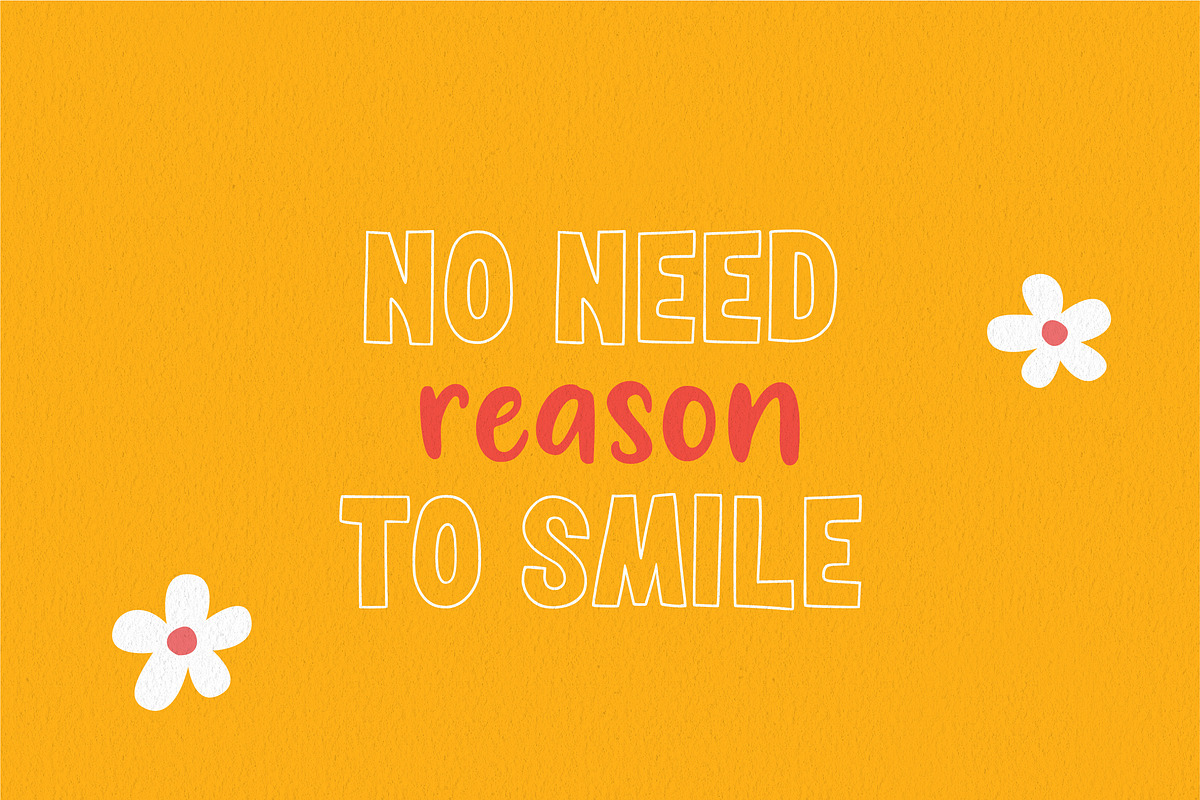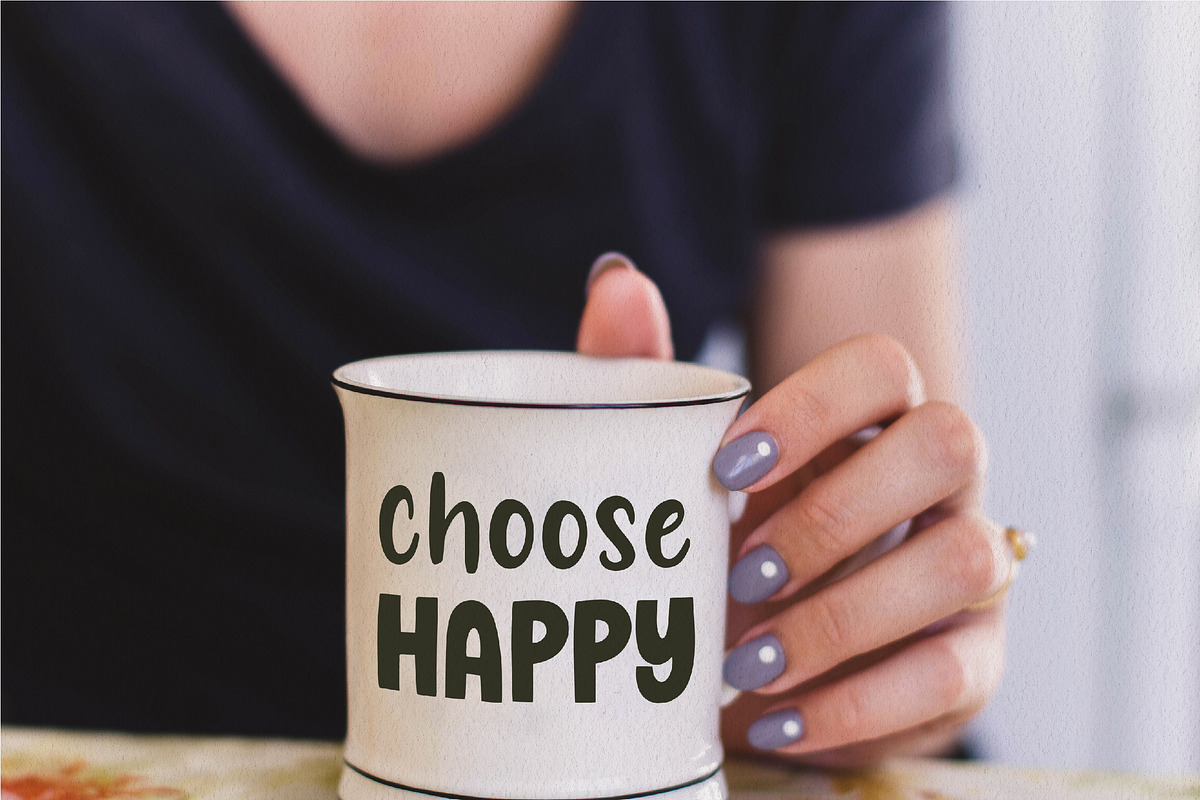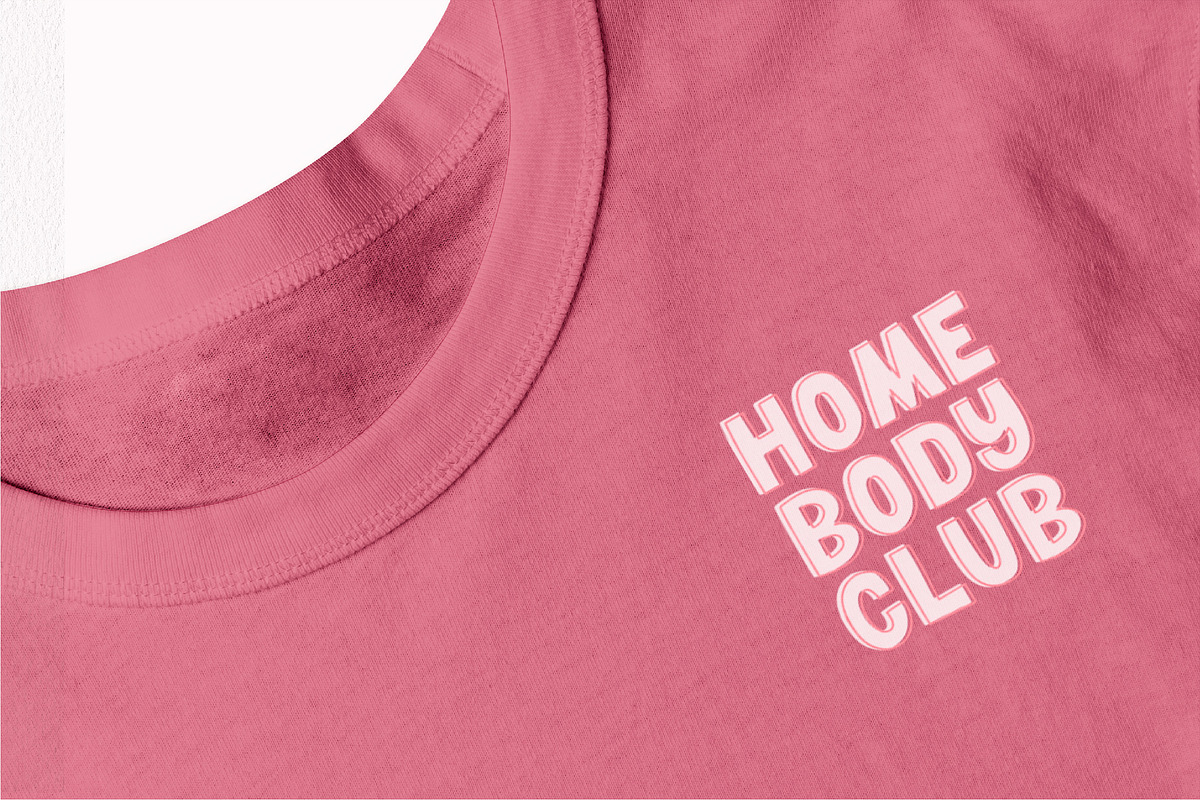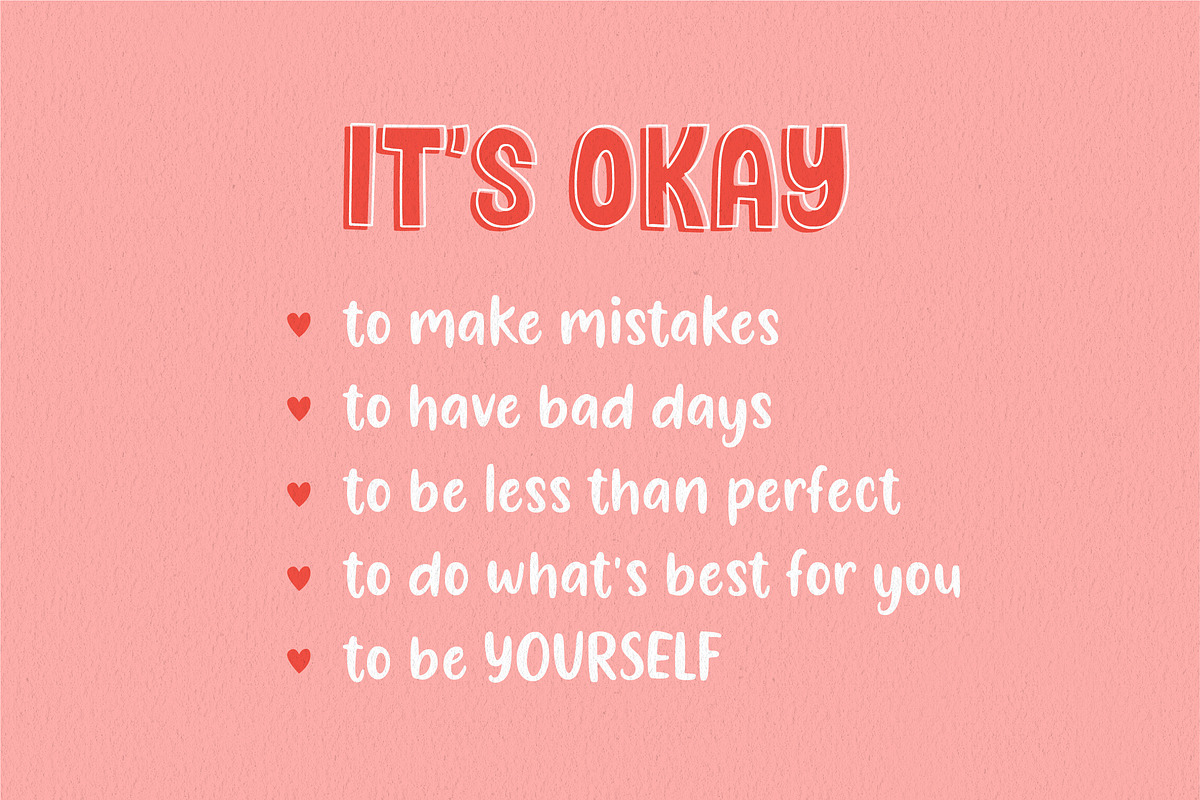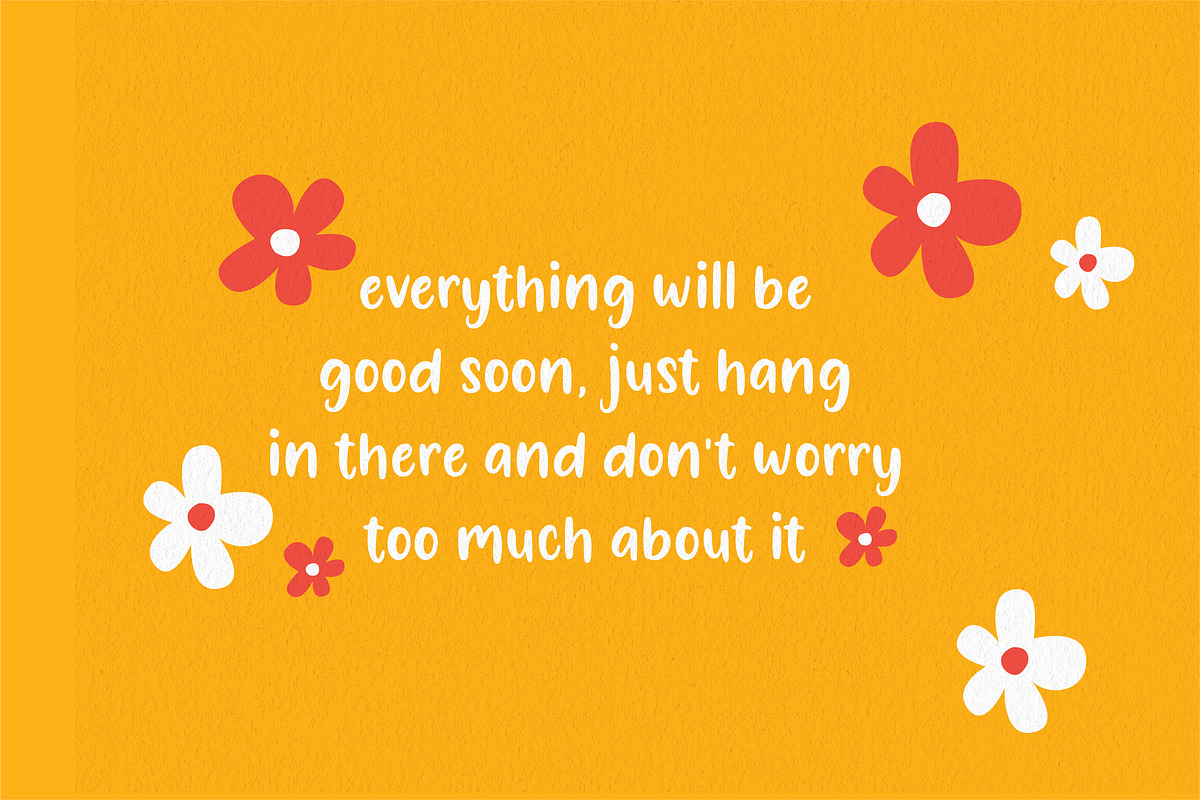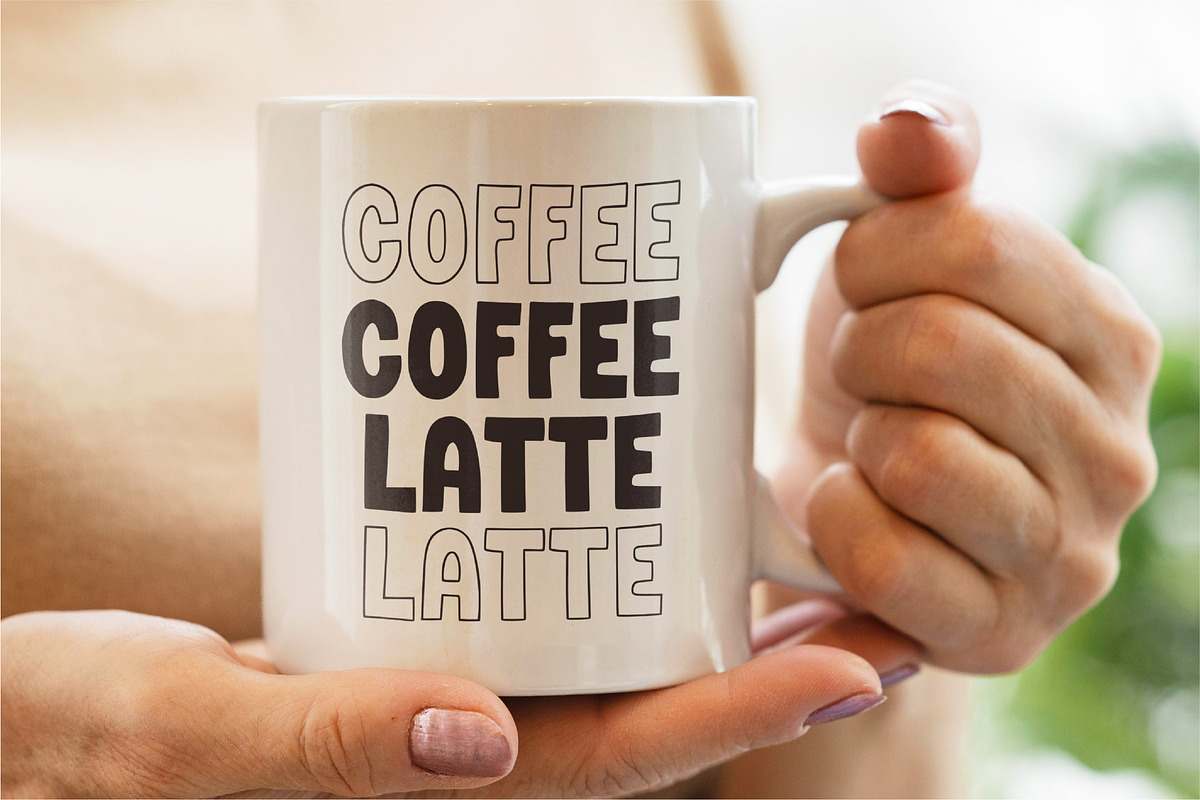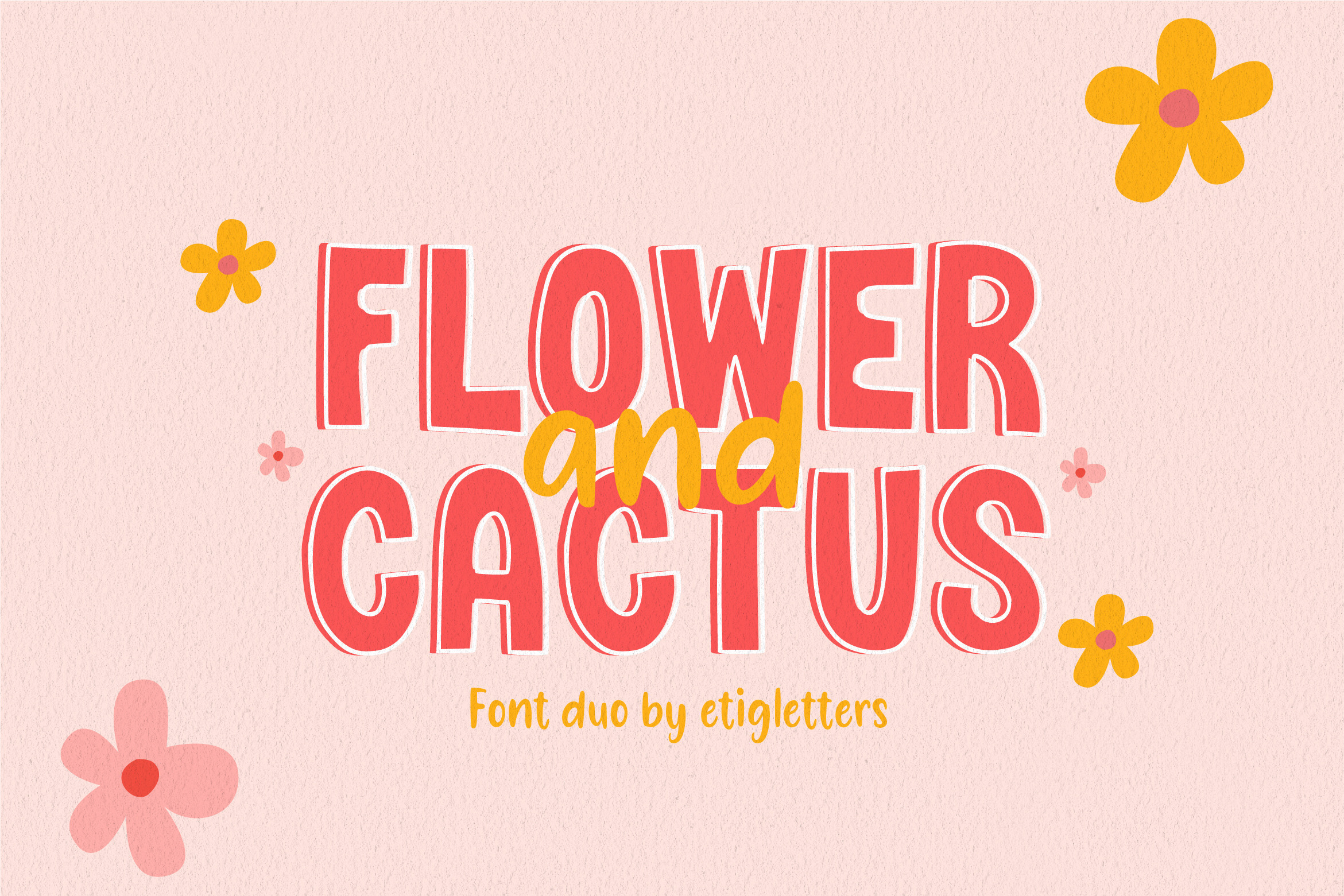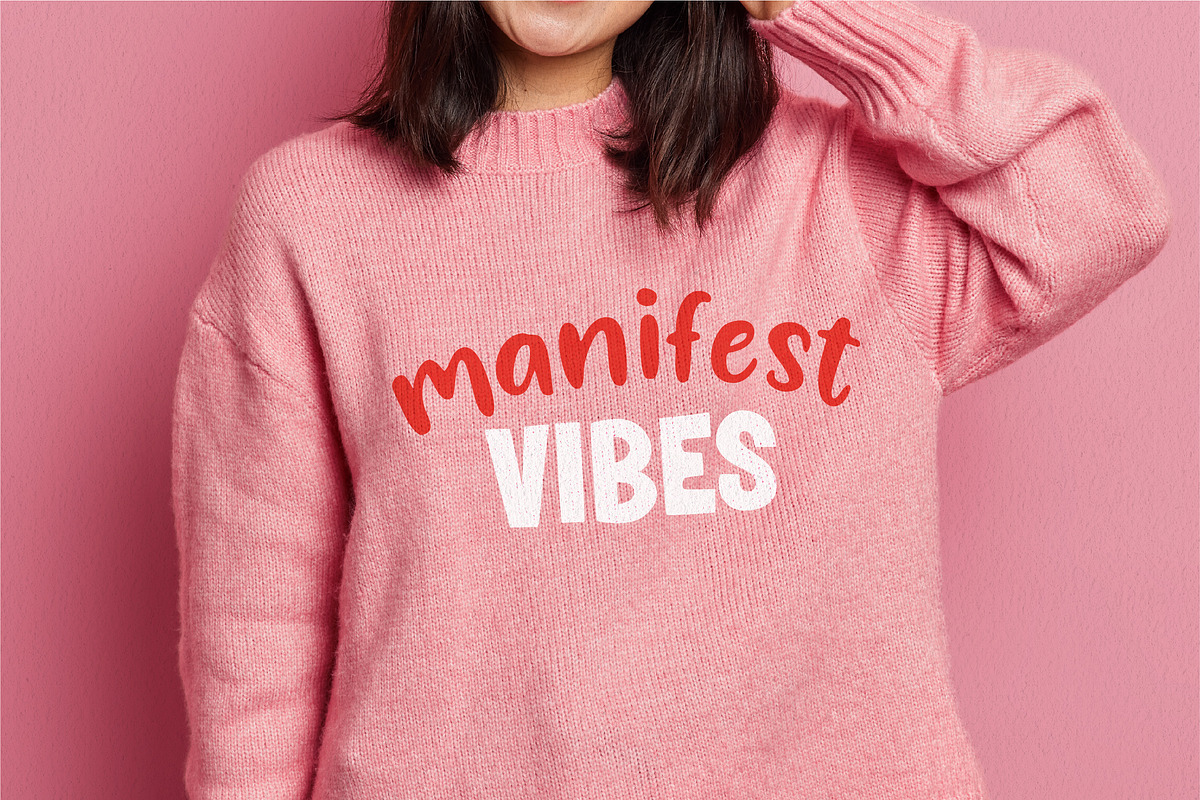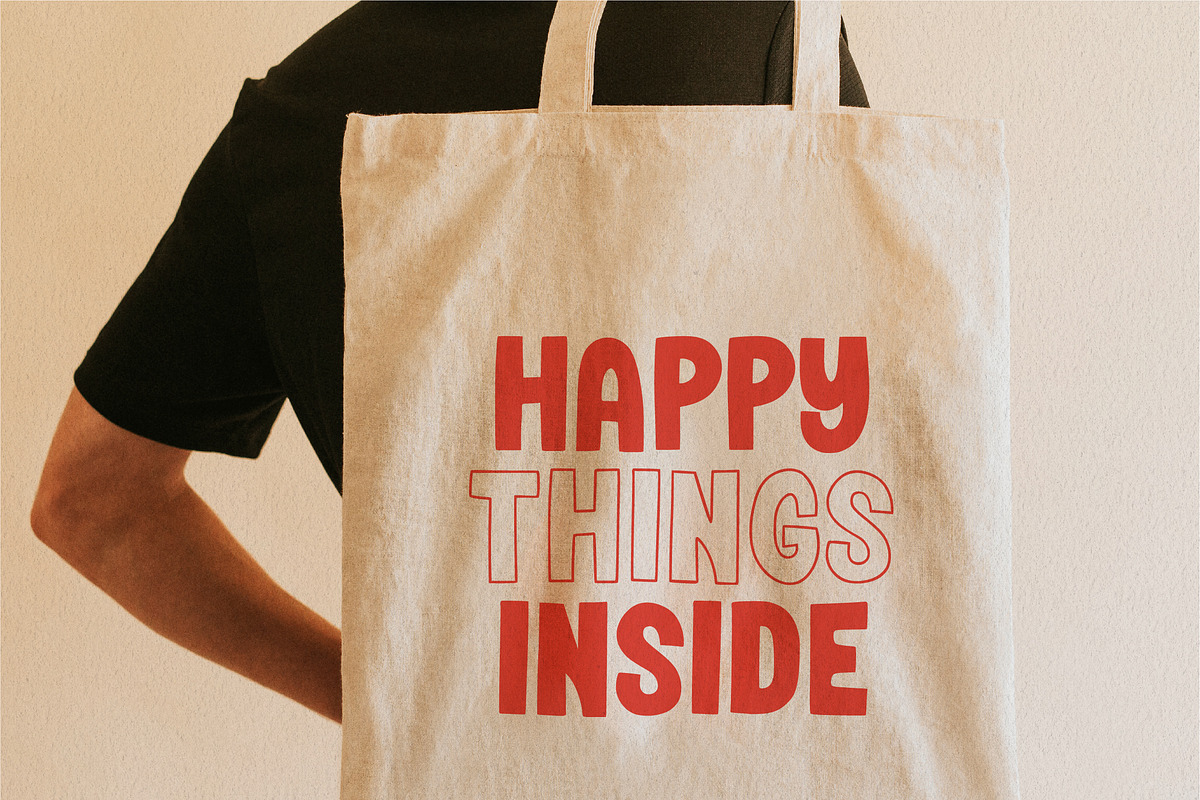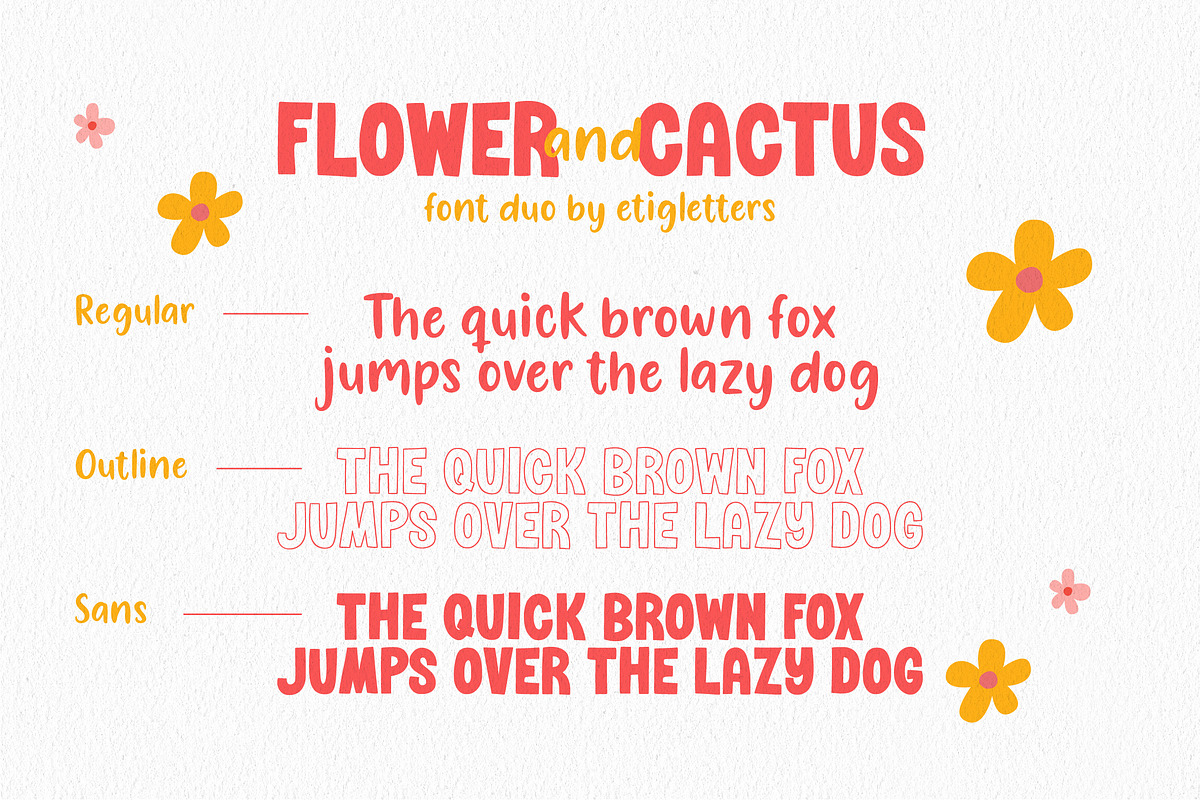
Flower and Cactus Font Duo
Introducing, Flower and Cactus - a san serif combo pairing with playful sans. Flower and Cactus will be perfect for stickers, greeting cards, logos, posters or anything that requires a fun and happiness look!
This font also suitable to be combined with script that will make your design more perfect. Also already PUA Encoded!